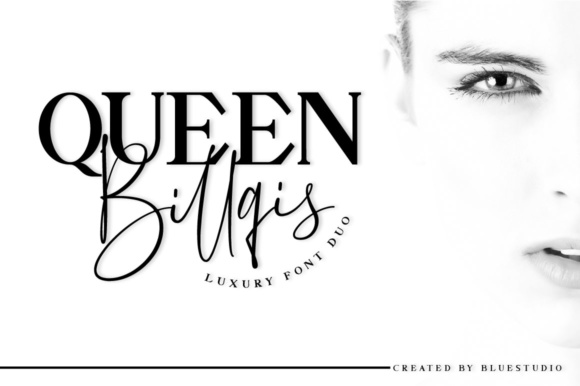
Dive into the world of Queen Billqis, an enchanting font duo designed by Bluestudio, capturing the essence of elegance and luxury in every letterform. This captivating script and serif font partnership is the ultimate creative weapon for designers seeking to make a lasting impact.
Unleash your imagination with the magnificent Queen Billqis serif font, a timeless masterpiece exuding sophistication and class, yet playful enough to add a touch of whimsy to your designs. Its beautifully crafted serifs and delicate curves lend an air of refinement and grace to any project.
Alongside the majestic serif font, discover the allure of Queen Billqis script, a free-flowing handwritten font that dances across the page with unrestrained charm and personality. Its effortless style and natural variations create a sense of intimacy and warmth, adding a touch of soul to your designs.
Together, these two fonts form a harmonious symphony of typography, effortlessly complementing each other to create a cohesive and visually stunning aesthetic. Whether you're crafting captivating logos that demand attention, designing elegant wedding invitations that exude romance, or creating eye-catching social media posts that captivate your audience, Queen Billqis Duo Font is your ultimate creative companion.
Elevate your design projects to new heights with Queen Billqis Duo Font, a powerful tool that empowers you to communicate with clarity, style, and an unforgettable impact. Let your creative vision soar as you harness the beauty and versatility of this font duo, leaving a lasting impression on your audience with every design you create.